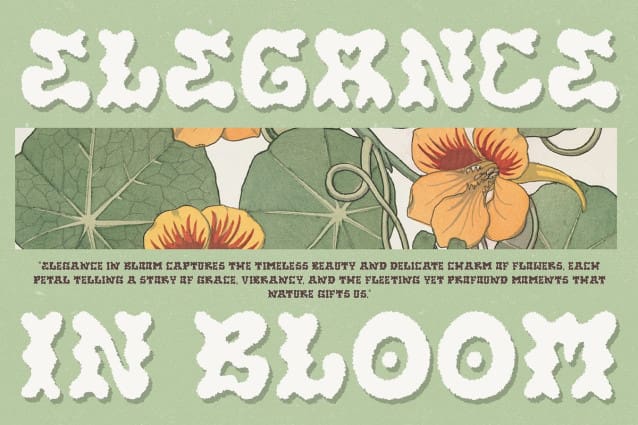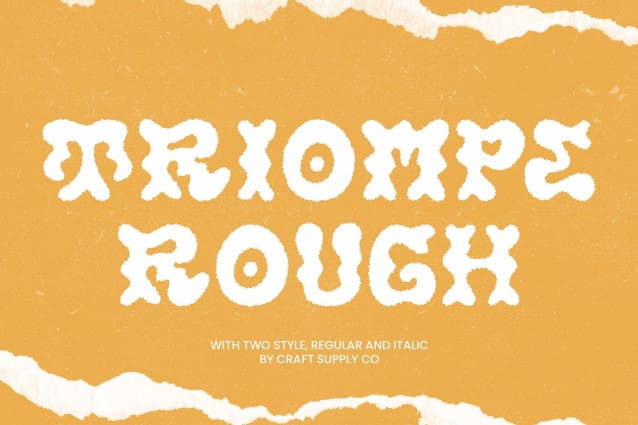
Triompe Rough Font
Triompe Rough Font is a bold display font that captures the essence of psychedelic artistry. Its unique, curved, and unconventional letterforms radiate creativity and individuality. Designed to evoke a funky and energetic vibe, this font is a perfect choice for projects that aim to stand out with bold visual statements and dynamic appeal.
Rough Texture for Depth and Character The rough texture of Triompe Rough adds an extra layer of character and depth, giving the font a raw, handcrafted feel. This detail brings a sense of vintage charm while maintaining a modern edge, making it a versatile option for designs that require a balance of nostalgia and boldness. Its roughness amplifies the font’s personality, ensuring that it captures attention in every application.
Perfect for Retro and Music-Themed Projects Triompe Rough’s psychedelic design and vintage texture make it an excellent choice for retro-themed and music-related projects. Whether it’s a vibrant concert poster, a funky album cover, or a creative branding project, this font delivers a dynamic aesthetic that perfectly complements expressive and unconventional designs. Its retro appeal resonates with audiences, making it ideal for designs that aim to evoke a sense of nostalgia and creativity.